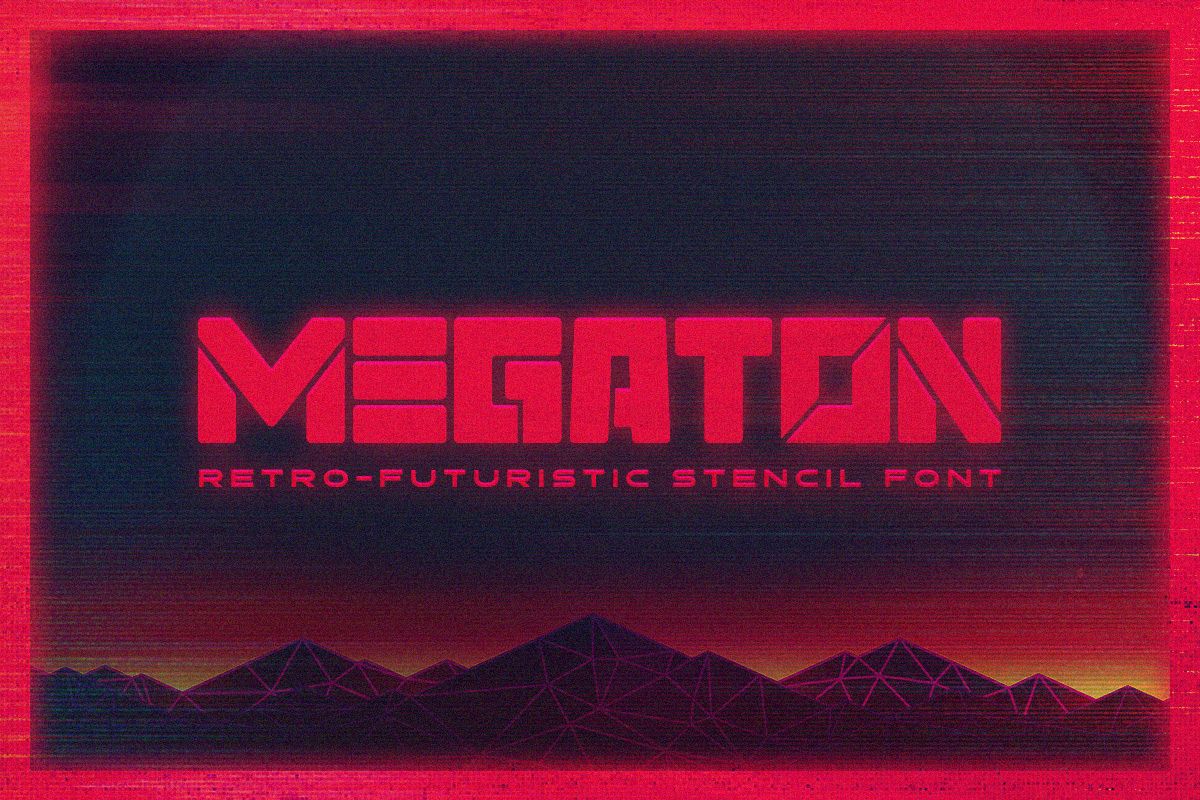
Megaton
Megaton is a big & bold stencil font with uppercase multilingual letters, numbers and punctuation.
Tugcu Design Co.
Megaton
By Tugcu Design Co.